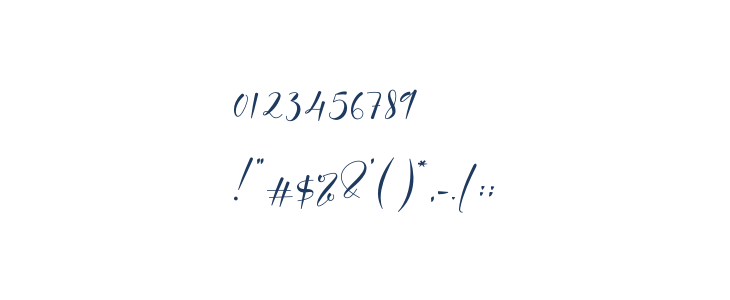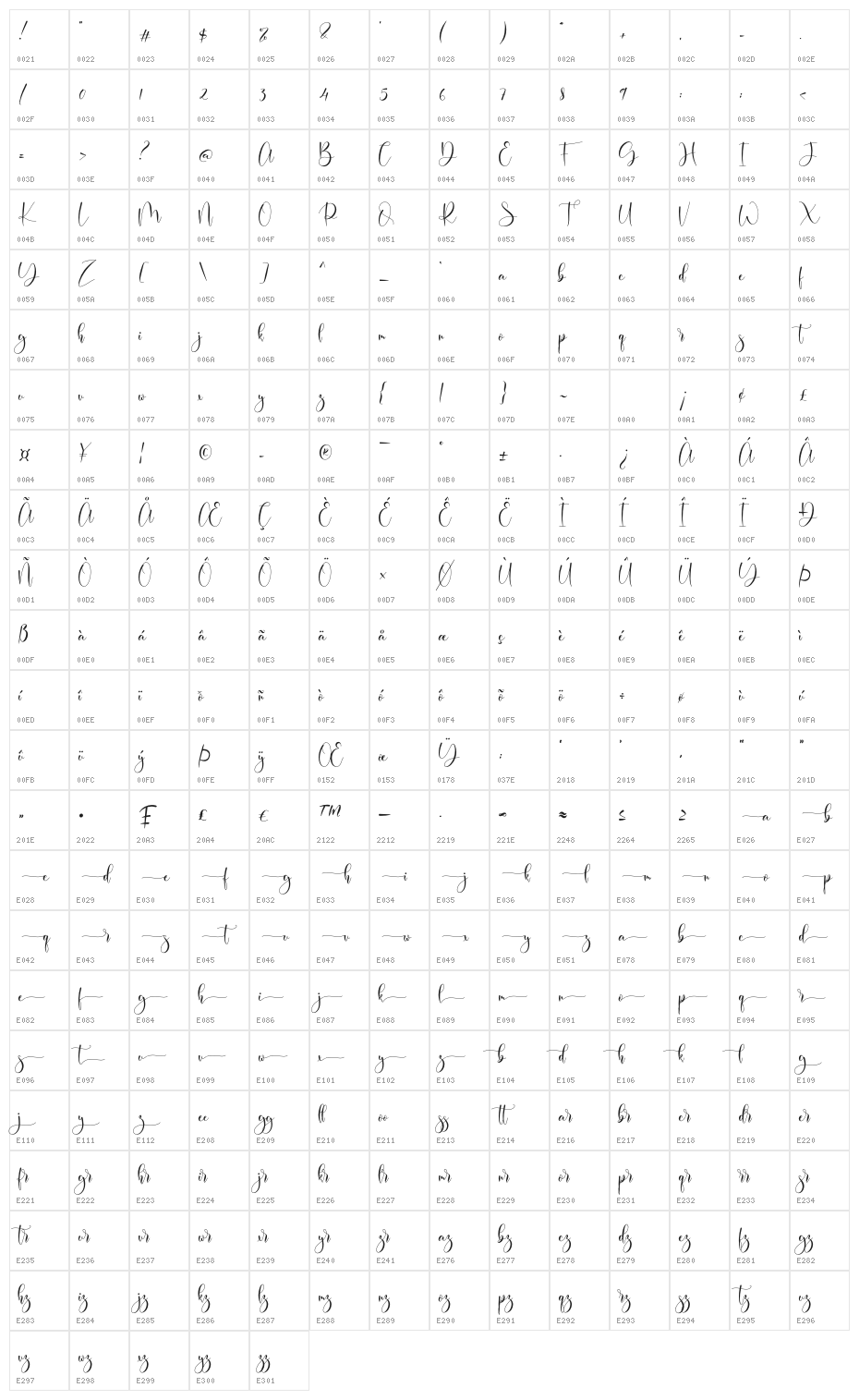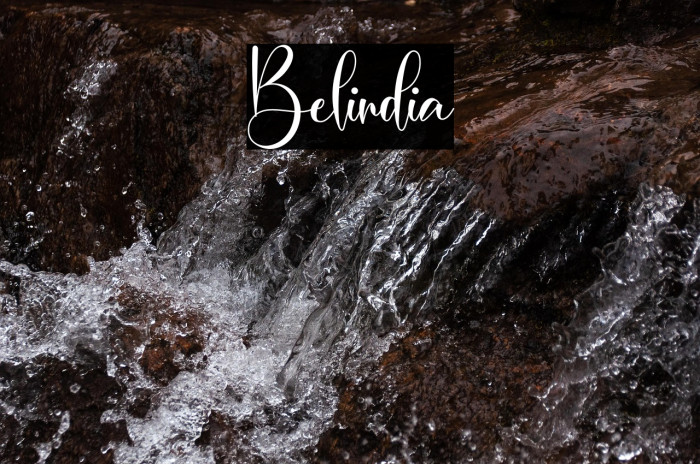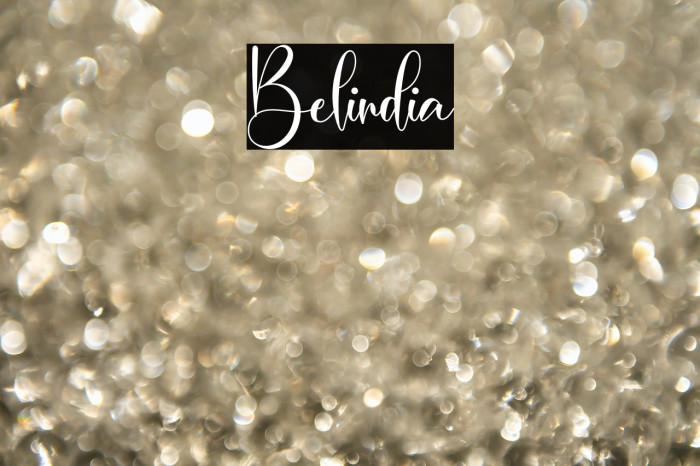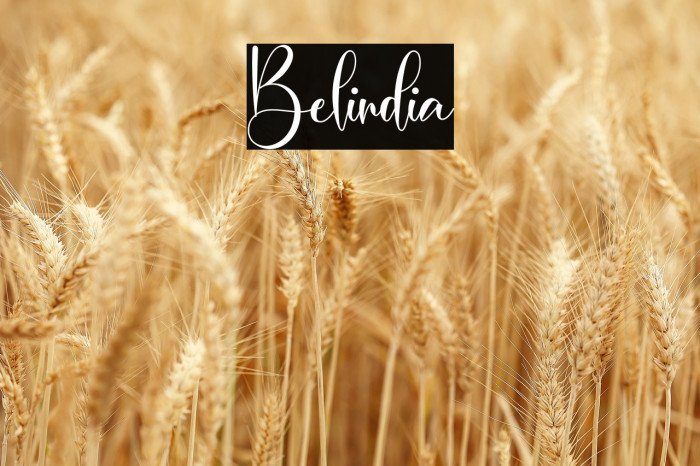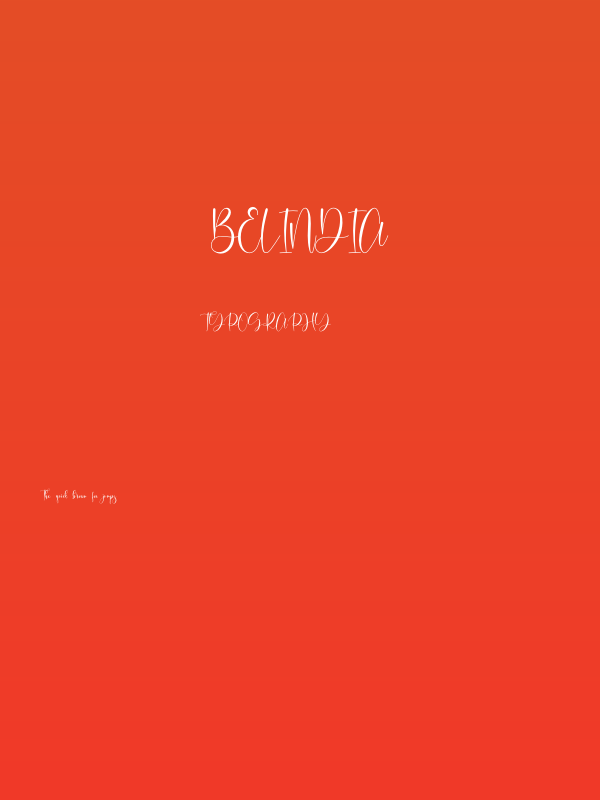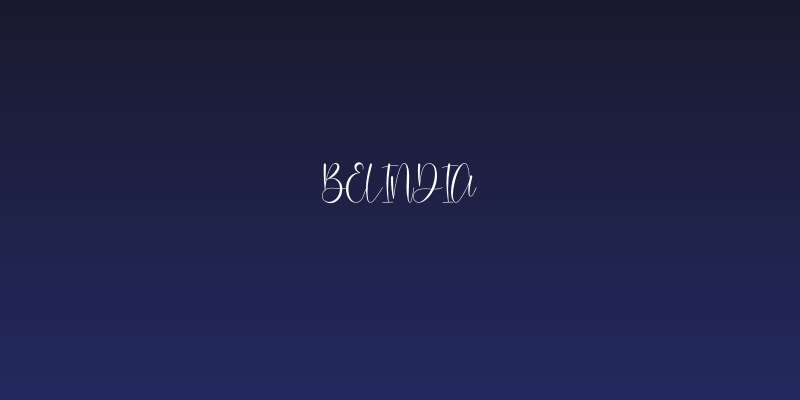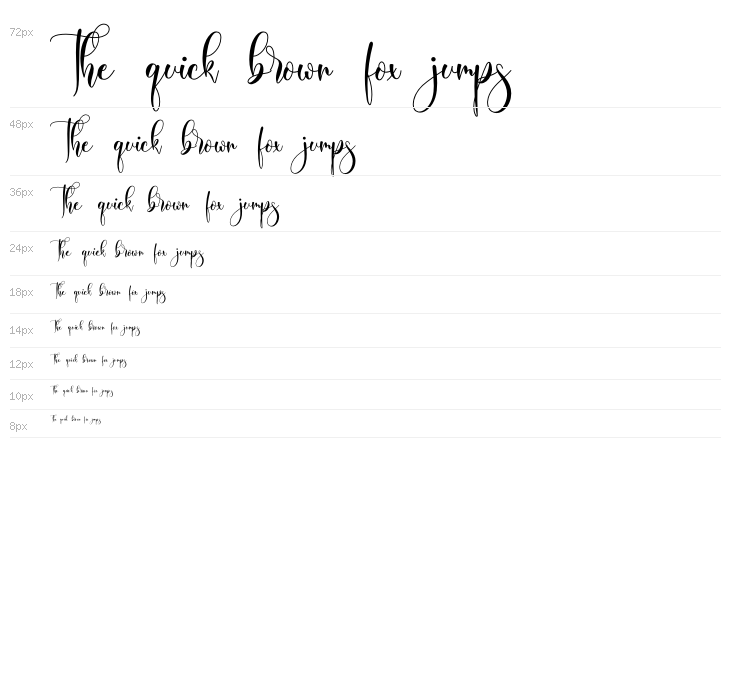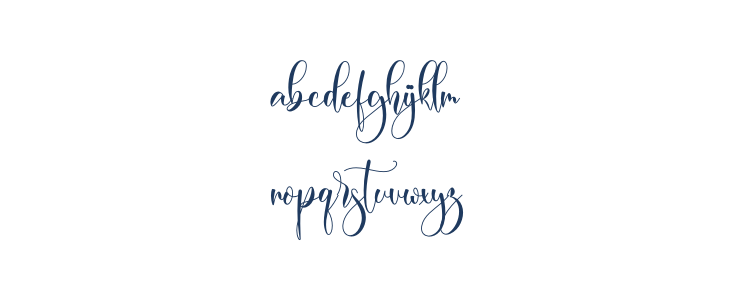
Belindia Font
Belindia Description
This elegant script font features a flowing, cursive style with intricate loops and swashes that give it a sophisticated and artistic appearance. The uppercase letters are tall and graceful, with sweeping lines that create a sense of movement. The lowercase letters are equally ornate, with delicate curves and flourishes that add to the font's charm. The numerals are stylish and consistent with the overall design, maintaining the same elegant flow. Special characters are thoughtfully designed to complement the letters, enhancing the font's versatility. This font is perfect for projects that require a touch of elegance and creativity.
| Overall Style | Elegant, Artistic |
| Proposed Projects | Ideal for wedding invitations, greeting cards, branding, and elegant logos. |